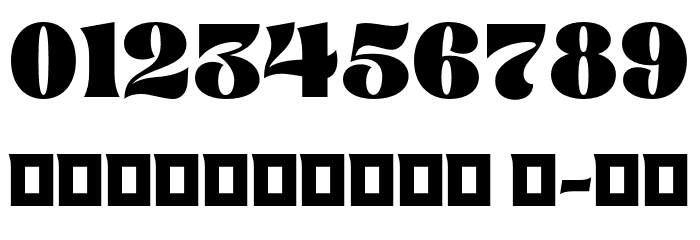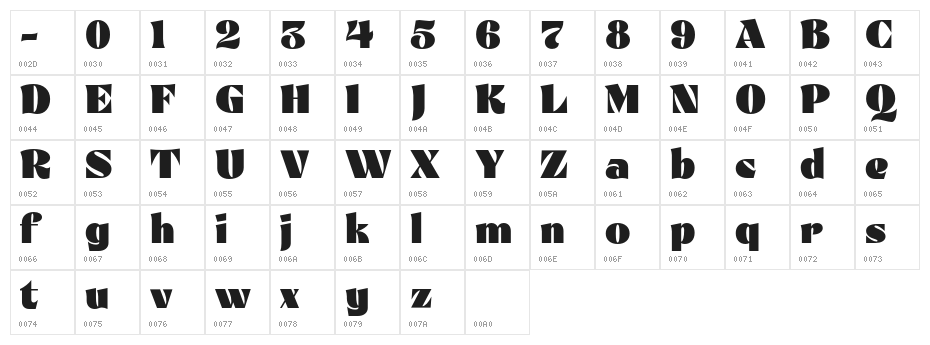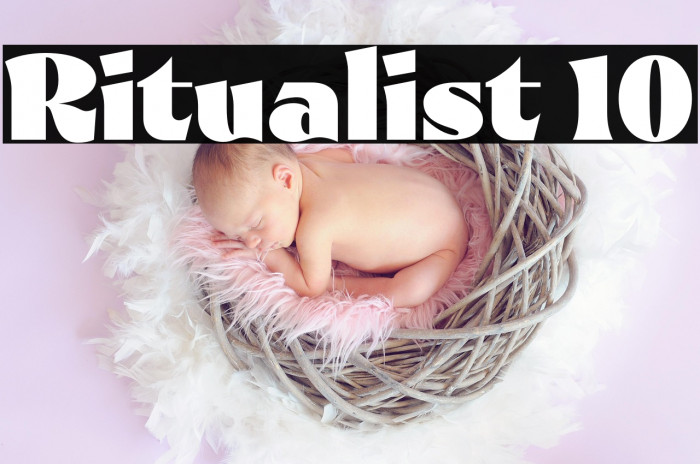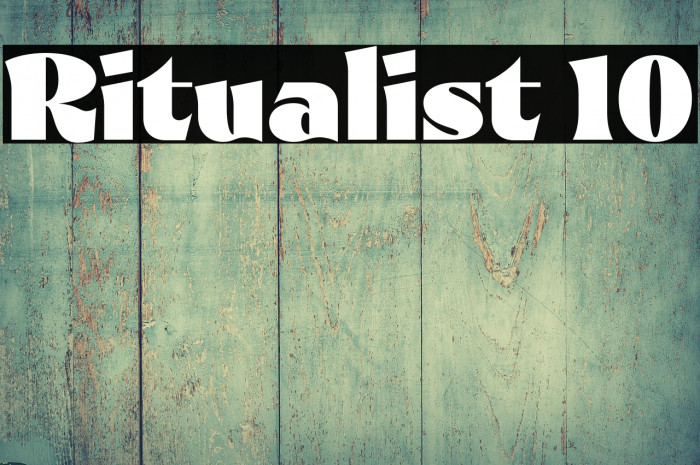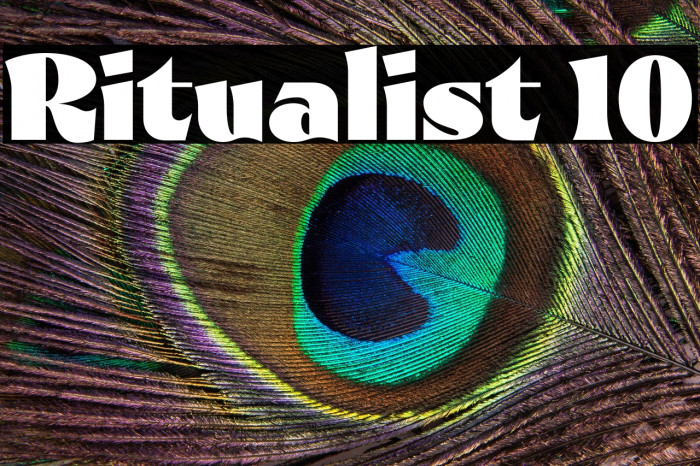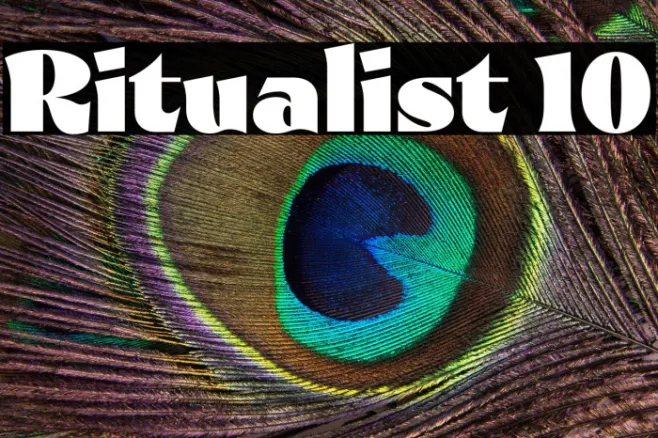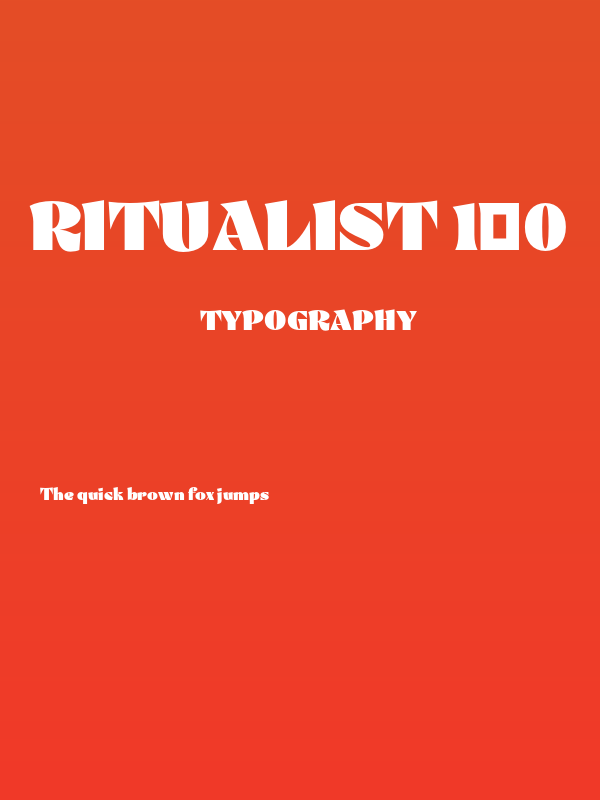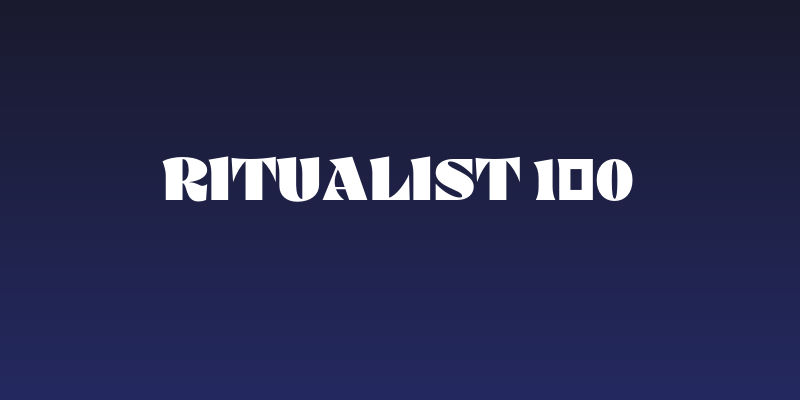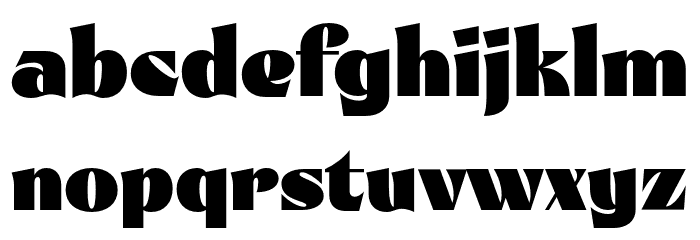
Ritualist 1.0 Font
Ritualist 1.0 Description
This font features a bold and dramatic style with thick, heavy strokes and sharp, angular serifs. The characters have a distinct geometric influence, with a strong presence and a commanding appearance. The uppercase letters are particularly striking, with their wide, blocky forms and unique cutouts that add a sense of modernity and flair. The lowercase letters maintain the boldness of the uppercase, with rounded edges that soften the overall look slightly. Numbers and special characters follow the same bold and geometric design, making them highly legible and visually impactful. This font is ideal for making a statement and drawing attention.